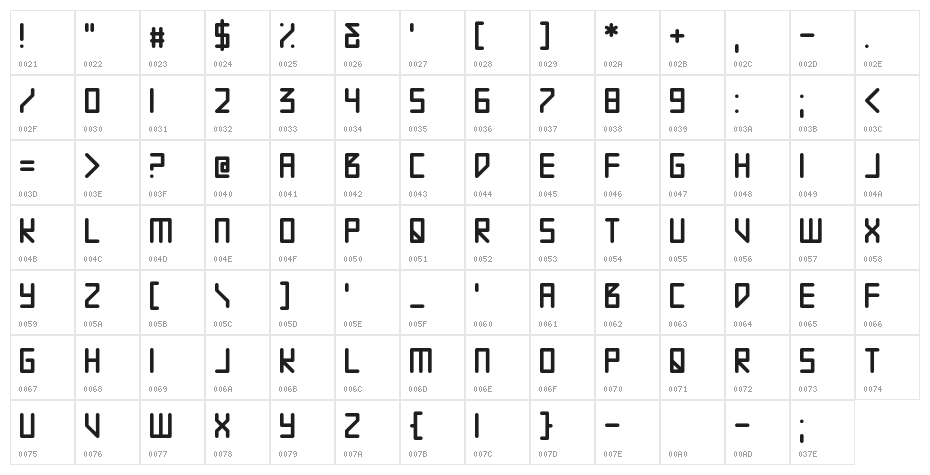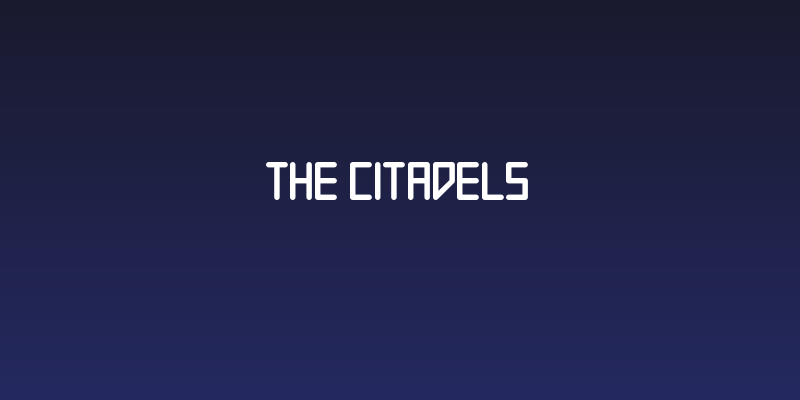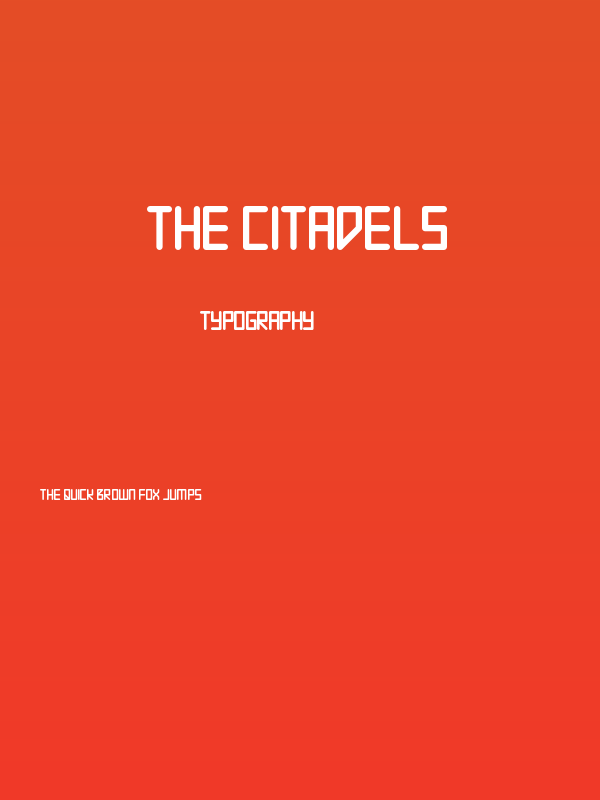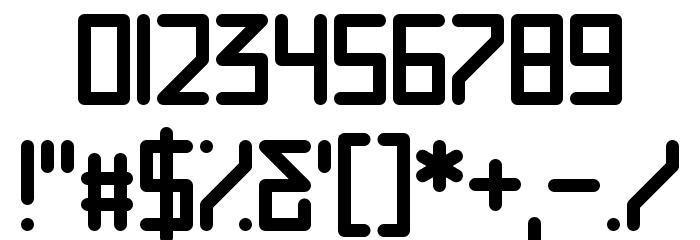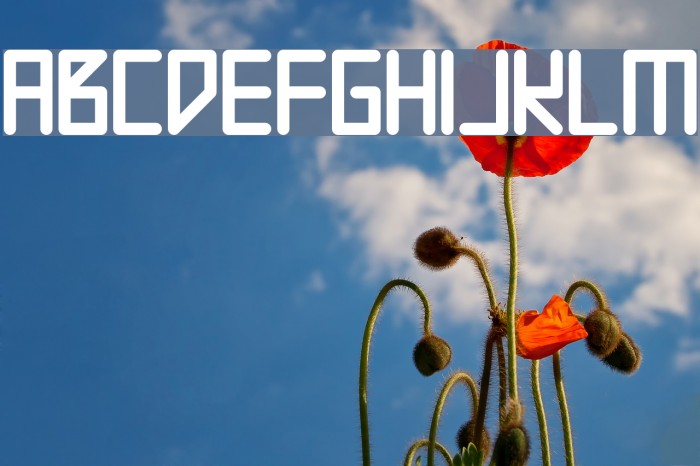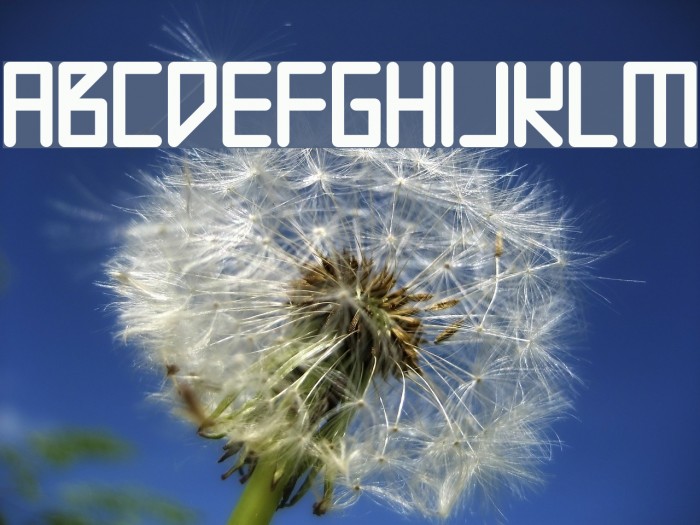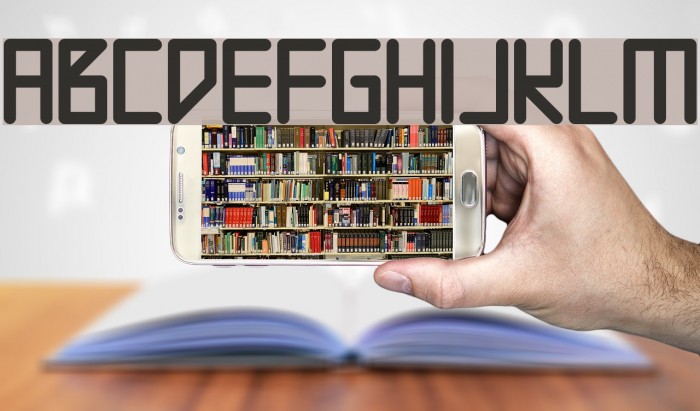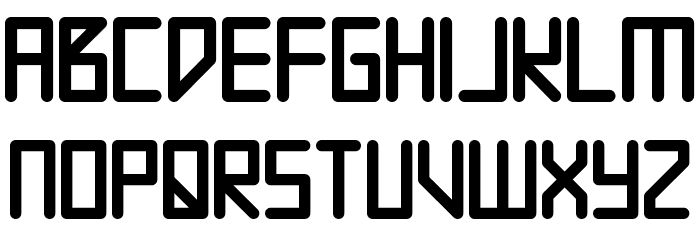
The Citadels Font
The Citadels Description
This font features a bold, geometric design with a modern and futuristic aesthetic. The characters are constructed with uniform stroke widths, creating a cohesive and structured appearance. The uppercase letters have a distinct angularity, with sharp corners and straight lines that convey a sense of precision and strength. The lowercase letters maintain the same geometric style, ensuring consistency throughout the typeface. Numbers and special characters are designed to match the overall style, making this font versatile for various applications. The uniformity in stroke width and the absence of serifs contribute to its clean and minimalistic look, ideal for contemporary design projects.
| Proposed Projects | Ideal for technology branding, sci-fi themed projects, modern posters, and digital interfaces. |